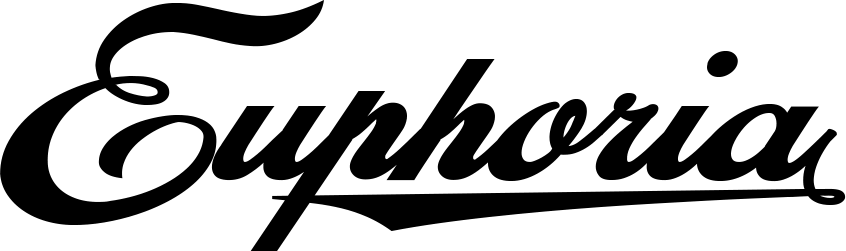
Euphoria Font
Do you crave an old-school style for your text designs? If so, you can’t go wrong with this one at all. Euphoria is a baseball script font that appears in semi-bold characters that curl at the tips. It’s perfect for logo…
Do you crave an old-school style for your text designs? If so, you can’t go wrong with this one at all. Euphoria is a baseball script font that appears in semi-bold characters that curl at the tips.
It’s perfect for logos, bag shops, apparel, and so on. Keep in mind that this case lacks numbers and punctuation and isn’t that legible. To get more of this category, visit our boundless website.